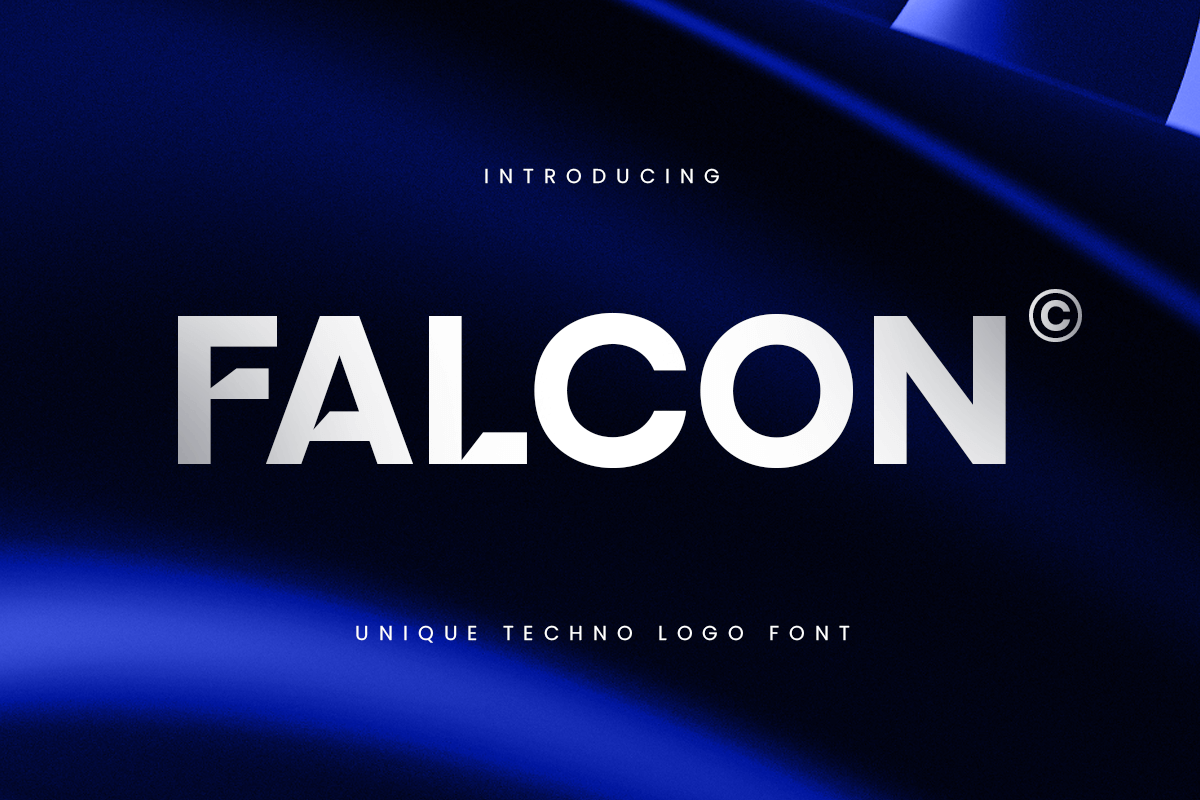
Falcon
-Unique Techno Logo FontFalcon - Unique Techno Logo Font
Falcon is a bold and distinctive display font inspired by advanced technology and industrial aesthetics. Its sharp angles, geometric forms, and futuristic vibe make it the perfect fit for tech startups, esports teams, apps, automotive branding, and sci-fi-themed designs. With a sleek and confident structure, Falcon adds innovation and edge to any project.
Designed to leave a lasting impression, Falcon works well in both large-scale headlines and compact logo marks. It brings a forward-thinking presence that speaks to modern design trends while maintaining high readability.
Fuel your design with Falcon—a font that flies high with tech precision and visual power.
Falcon Unique Techno Logo Font Features:
- Futuristic and Geometric Letterforms